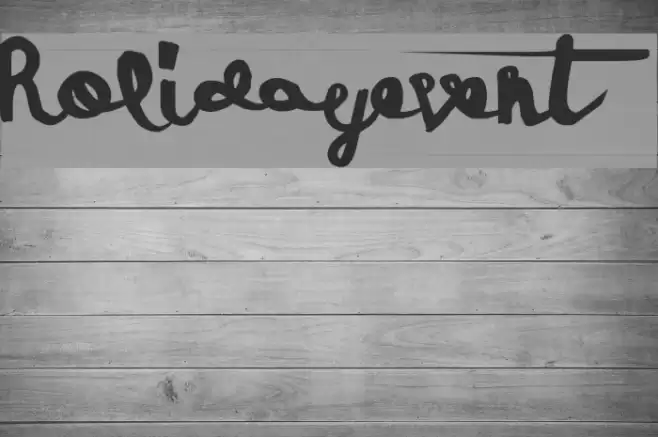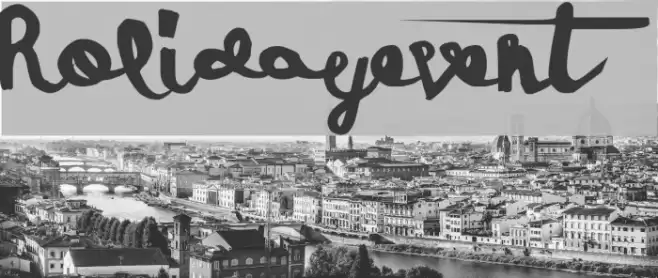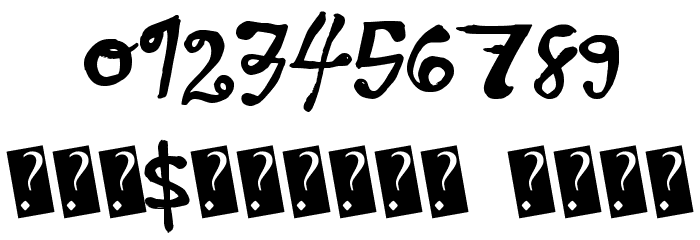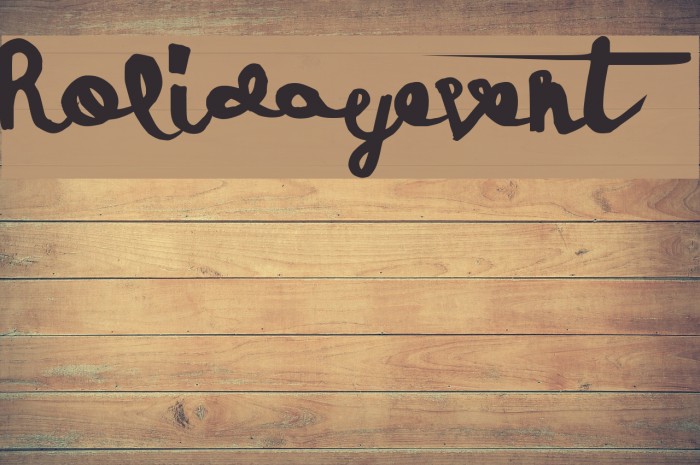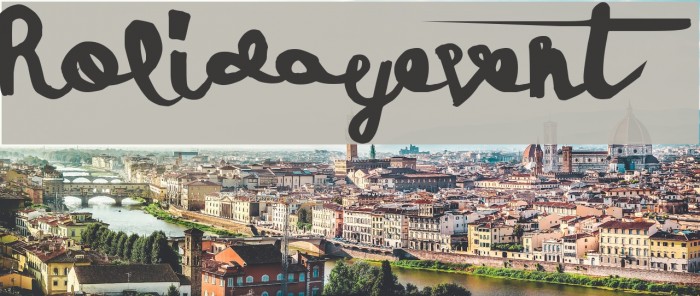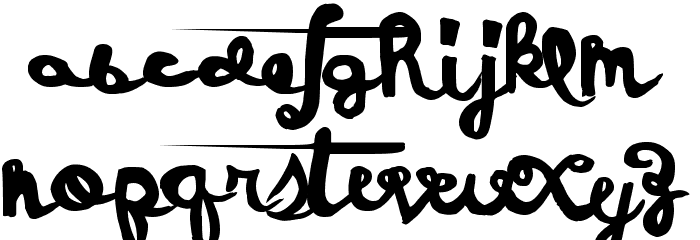
HolidayEvent Font
HolidayEvent Description
This font features a playful and energetic script style, characterized by its bold and flowing strokes. The letters are connected, creating a sense of movement and continuity. The uppercase and lowercase letters maintain a consistent style, with exaggerated curves and loops that add a whimsical touch. The numbers and special characters follow the same lively design, ensuring uniformity across all elements. This font's unique style makes it stand out, offering a dynamic and engaging visual experience.
A bold, playful script font with flowing, connected letters from Uncategorized fonts.
- Proposed Projects: Ideal for greeting cards, event invitations, playful branding, and creative posters.
- Use Case: Logos, Headlines, Invitations